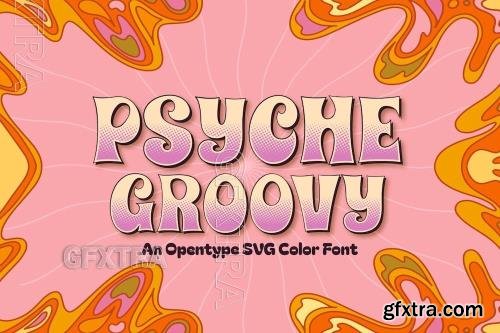
Psyche Groovy font
Psyche Groovy is a vibrant, retro-inspired font bursting with psychedelic energy. Its halftone textures and wavy, groovy shapes create a dynamic, eye-catching look, perfect for vintage posters, funky branding, and bold designs. With its trippy, 70s-inspired aesthetic, Psyche Groovy brings a fun, free-spirited vibe that makes every word dance with personality.